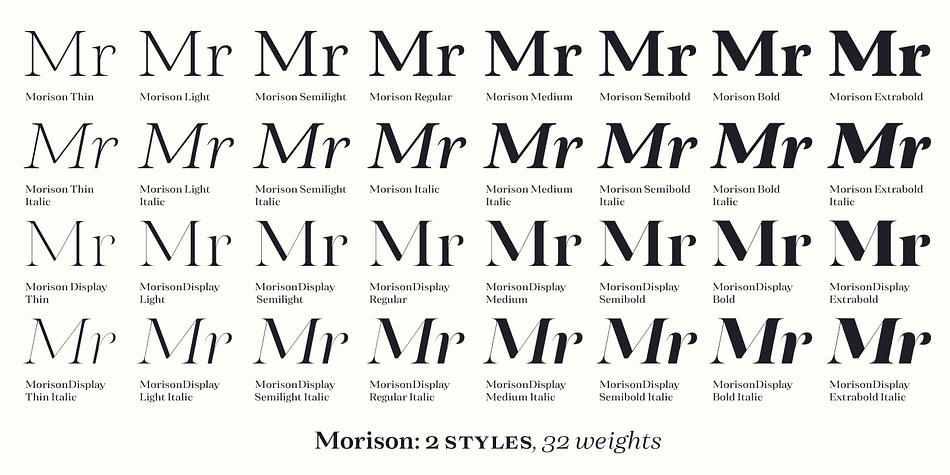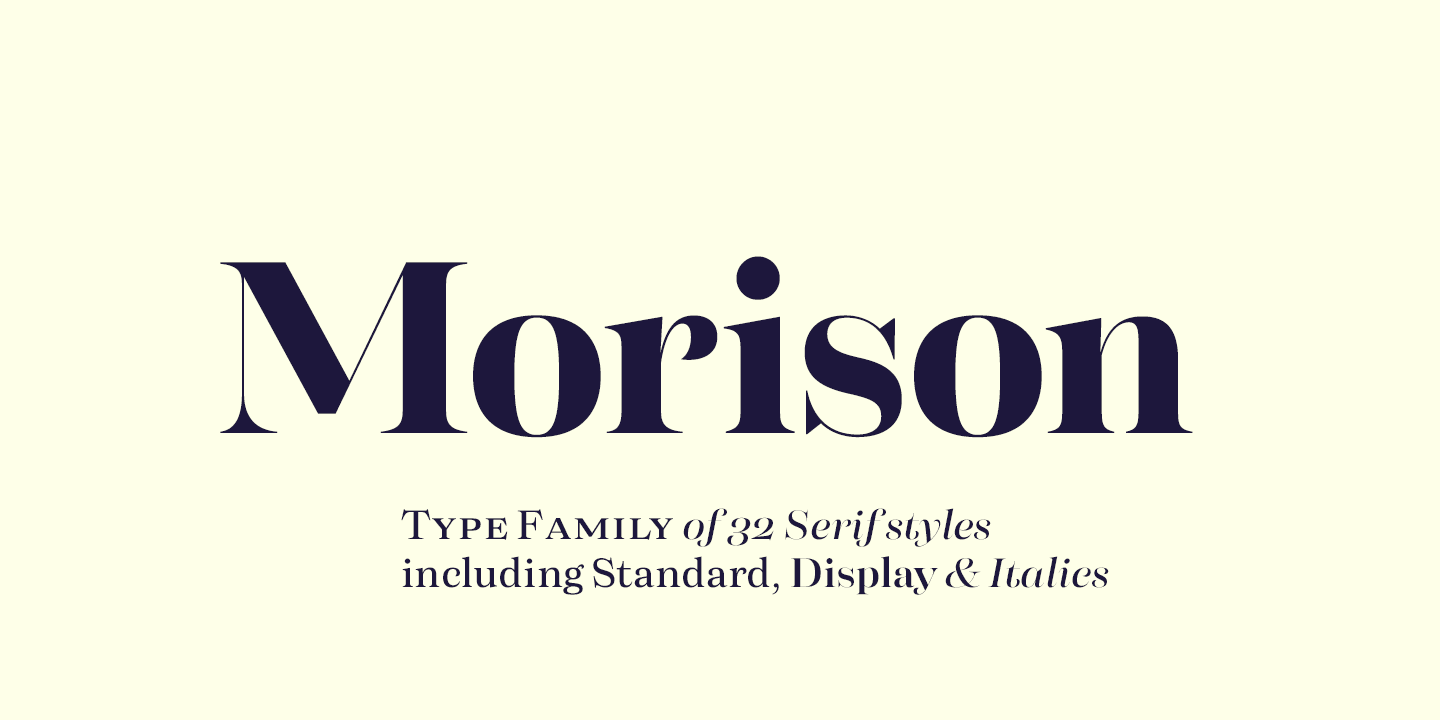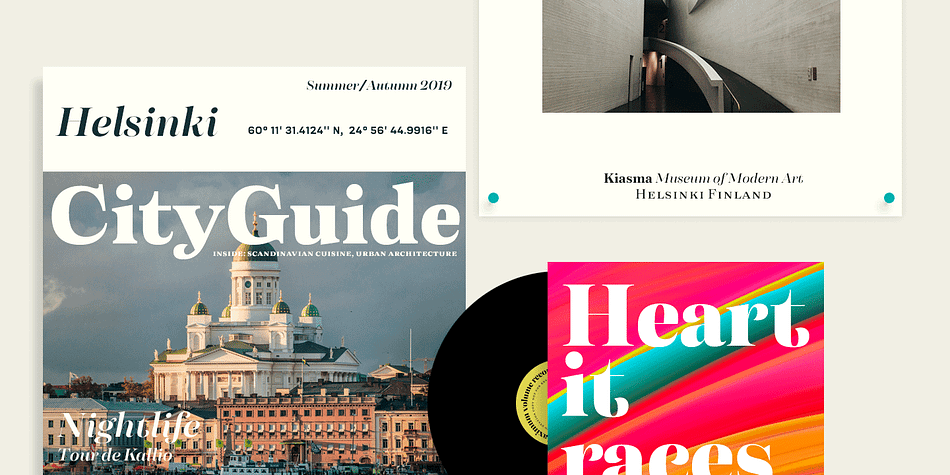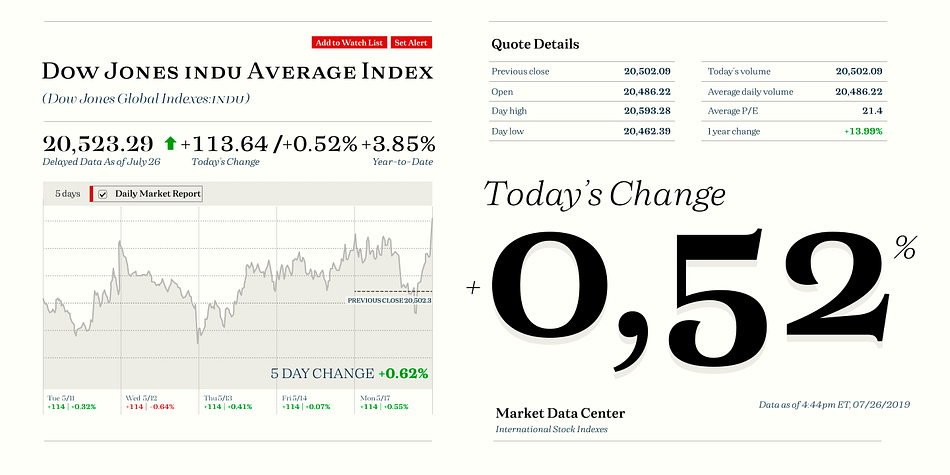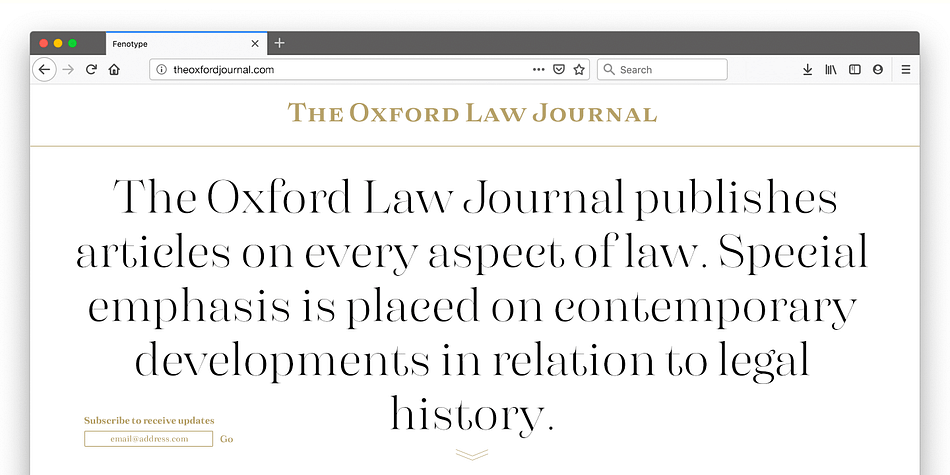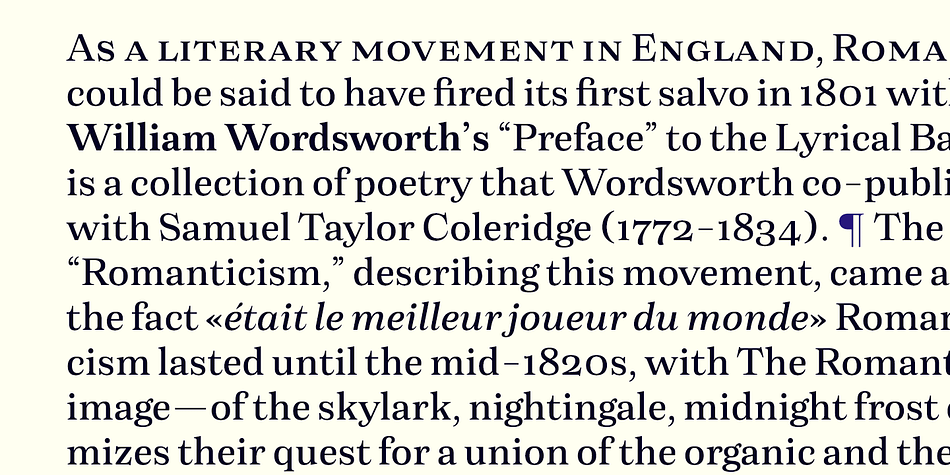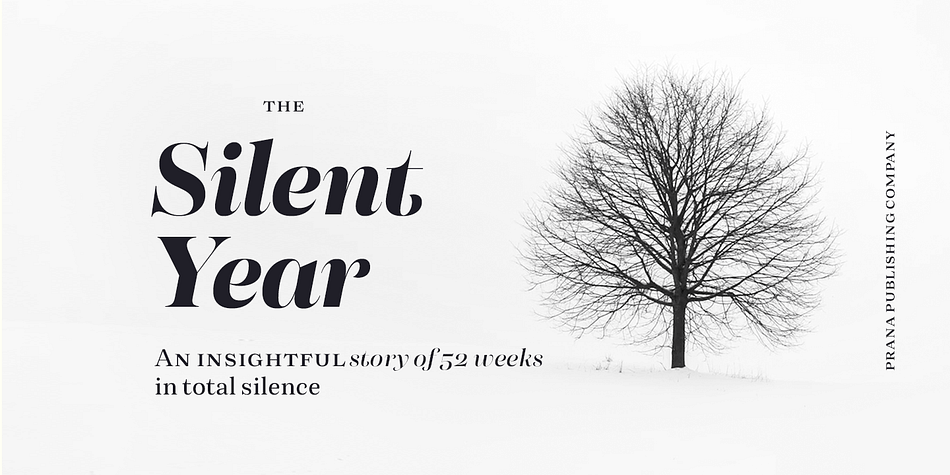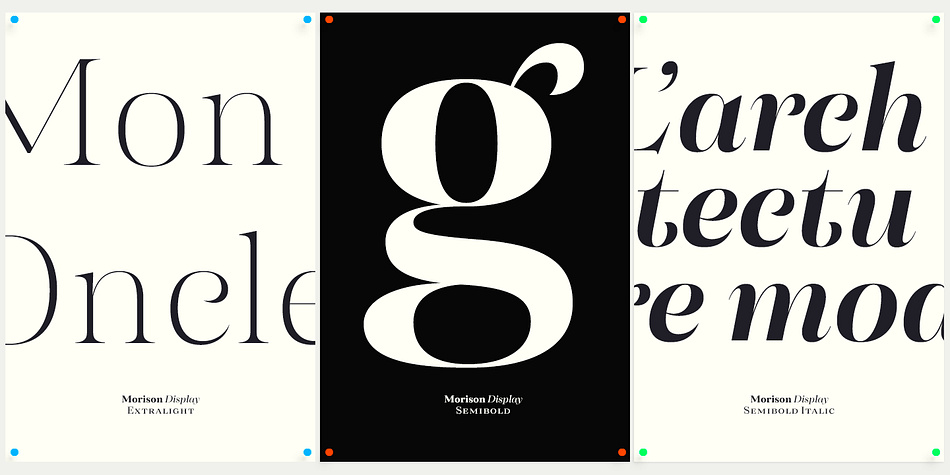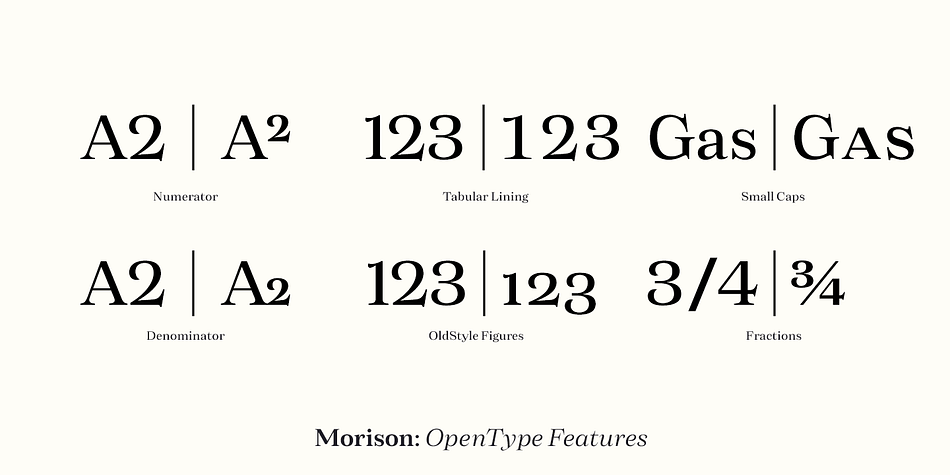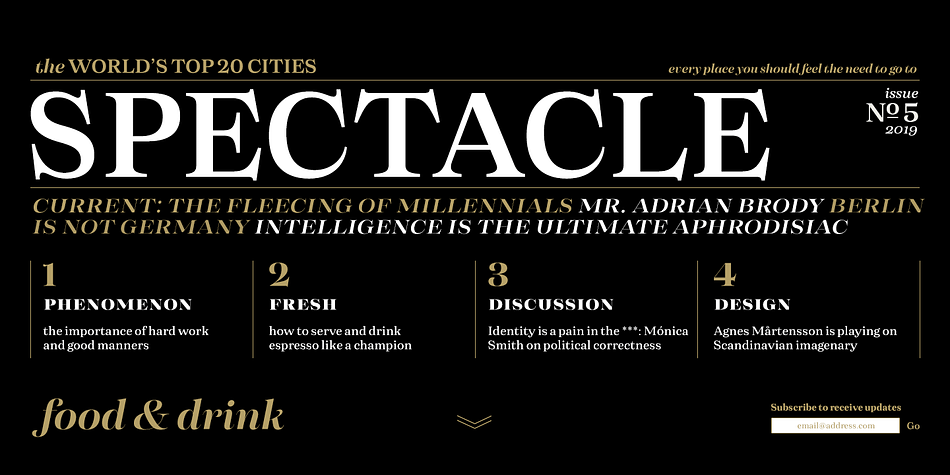
Designed by Erik Bertell, Emil Bertell and Teo Tuominen, Morison is a display serif and serif font family. This typeface has thirty-two styles and was published by Fenotype.
Morison is an original but versatile serif family. With just about right amount of personality and character, it can stand out when needed, but works equally well in everyday tasks where legibility is the key.
The Morison family consists of separate stylistic ranges for display and text use. Each range comes in eight weights with corresponding italics.
The display versions are sophisticated enough for tasks where a certain amount of extra elegance and flair are required, without compromising much on legibility. The text versions, however, are true workhorses, suitable for continuous texts in small sizes.
All Morison fonts are equipped with handy Open Type features, such as built-in small capitals and multiple numeral styles.